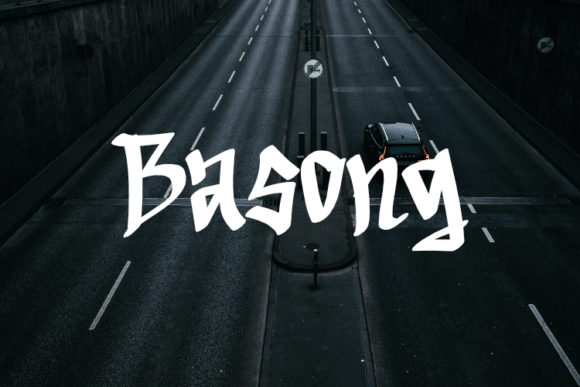
Unlock Your Creative Potential with Basong Font
Have you ever stared at a blank design canvas, feeling like your ideas are stuck in a rut? You know the feeling – it’s like the creative well has run dry. But what if I told you there’s a way to break free from that creative block and unleash a tidal wave of inspiration? For fashion-forward designers, the answer lies in a versatile and stylish font that’s about to revolutionize your designs – the Basong Font.
Basong Font is more than just a pretty face; it’s a powerful tool designed to bring your fashion designs to life. With its unique blend of chic elegance and modern edge, Basong Font is perfect for creating eye-catching clothing, t-shirts, and other products that will make your customers swoon. Whether you’re a seasoned designer or just starting out, Basong Font is an invaluable asset that will help you take your designs to the next level.
Basong Font Key Features
- Unique Characteristics: Basong Font features a unique blend of traditional and modern design elements, with intricate details and subtle nuances that set it apart from other fonts.
- Style Variations: Basong Font offers a range of style variations, including regular, bold, italic, and bold italic, providing designers with flexibility and creative freedom.
Basong Font Review
I recently had the chance to work with the Basong font, and I have to say it’s a unique find. The design has some interesting elements that caught my eye.
- ✨ The eclectic mix of geometric and organic shapes creates an intriguing contrast.
- ✨ The font’s wide range of weights and styles offers a lot of flexibility for designers.
- ✨ The Basong font has a distinct, hand-crafted feel that can add a touch of personality to designs.
- ⚠️ The font may be a bit too experimental for some projects, as the unconventional shapes might not appeal to all audiences.
- ⚠️ The Basong font can be difficult to read in smaller text sizes due to its complex letterforms.
- ⚠️ The font’s limited language support may be a concern for designers who need to work with non-Latin scripts.
Overall, the Basong font is a great choice for designers who want to add some visual interest to their projects. While it may have some limitations, its unique design and flexibility make it a valuable addition to any font collection. Just be aware of the potential drawbacks and use it wisely.
Basong Font: A Practical Application Guide
Tips for Getting the Most Out of Basong Font
Use Basong Font to add a touch of elegance and sophistication to your designs. Experiment with different font sizes and styles to create visual interest. Use it in combination with other fonts to create a unique and eye-catching design.
Use Basong Font for:
- Formal event invitations and announcements.
- Personalized gifts and stationery.
Alternatives to Basong Font for Designers
The Basong Font is a unique and elegant font used for various design purposes. However, it may not be suitable for every project. Here are a few alternatives that designers can consider:
Playfair Display is a luxurious, high-end font used for titles, headings, and other prominent text elements. It’s ideal for high-end branding, magazines, and advertising materials. Playfair Display is similar to Basong Font in its elegant and sophisticated feel, but it has a more classical and refined appearance.
Great Vibes is a modern and elegant script font used for titles, headings, and body text. It’s suitable for various design projects, including branding, advertising, and editorial content. Great Vibes is similar to Basong Font in its flowing and cursive feel, but it has a more relaxed and casual appearance.